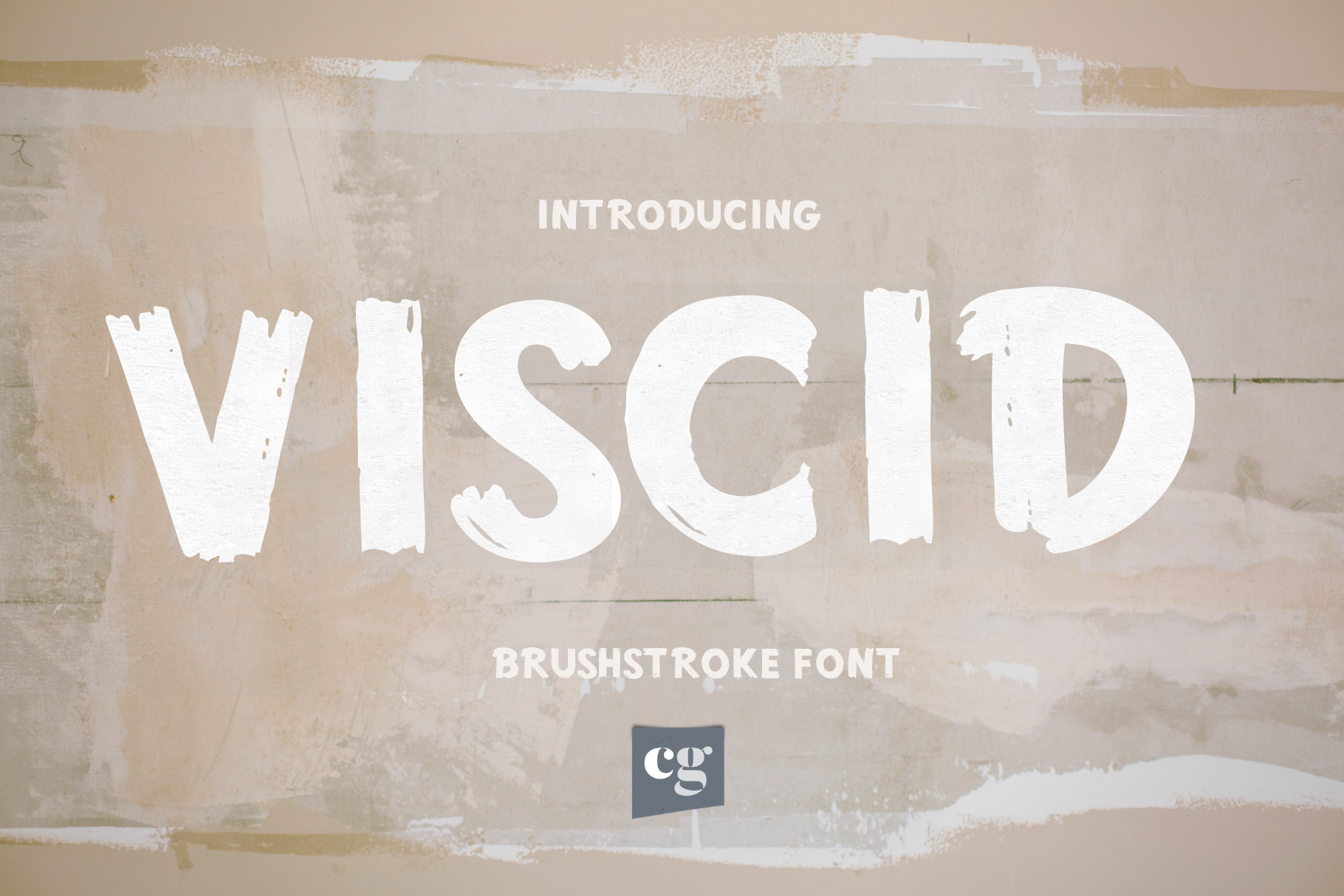
Viscid | Brush Font
Viscid is painted font style based upon styles found in old signwriters manuals. Painted using thick gloss paint strokes, it has imperfections for a handmade retro feel. It looks great on posters, billboards or somewhere used in large sizes, and seems to shout out of the page.
- Alternates for a natural style and over 370 glyphs